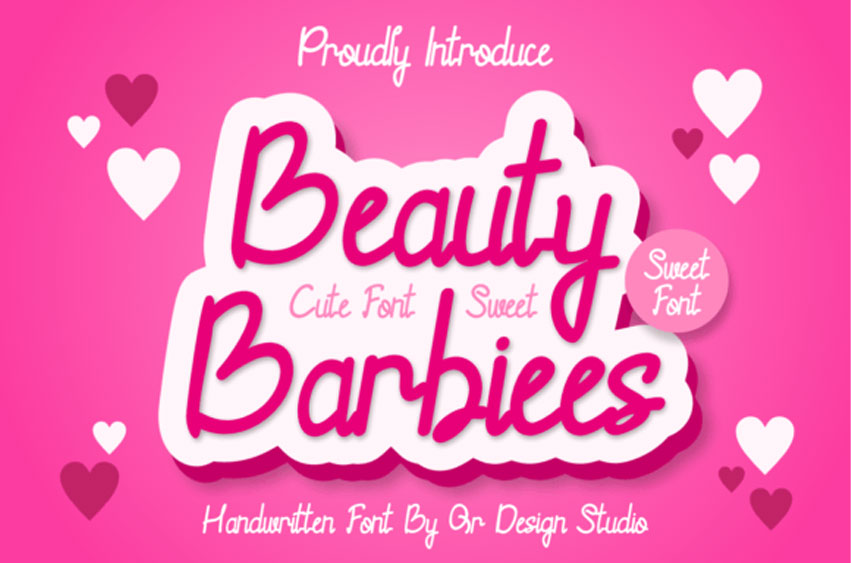
Beauty Barbiees Font is a bold and authentic display font.
The font is suitable for any branding projects like logos, fashion brands, photograohy, quotes, notetaking and more.